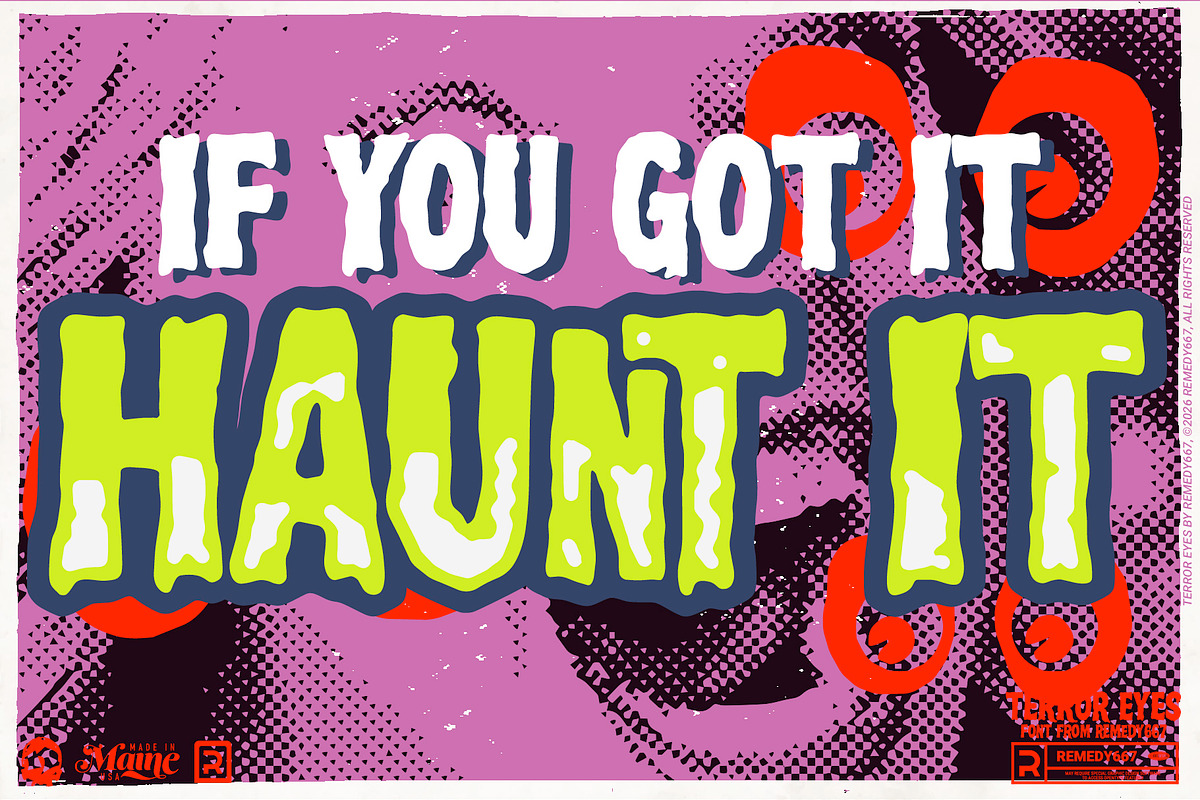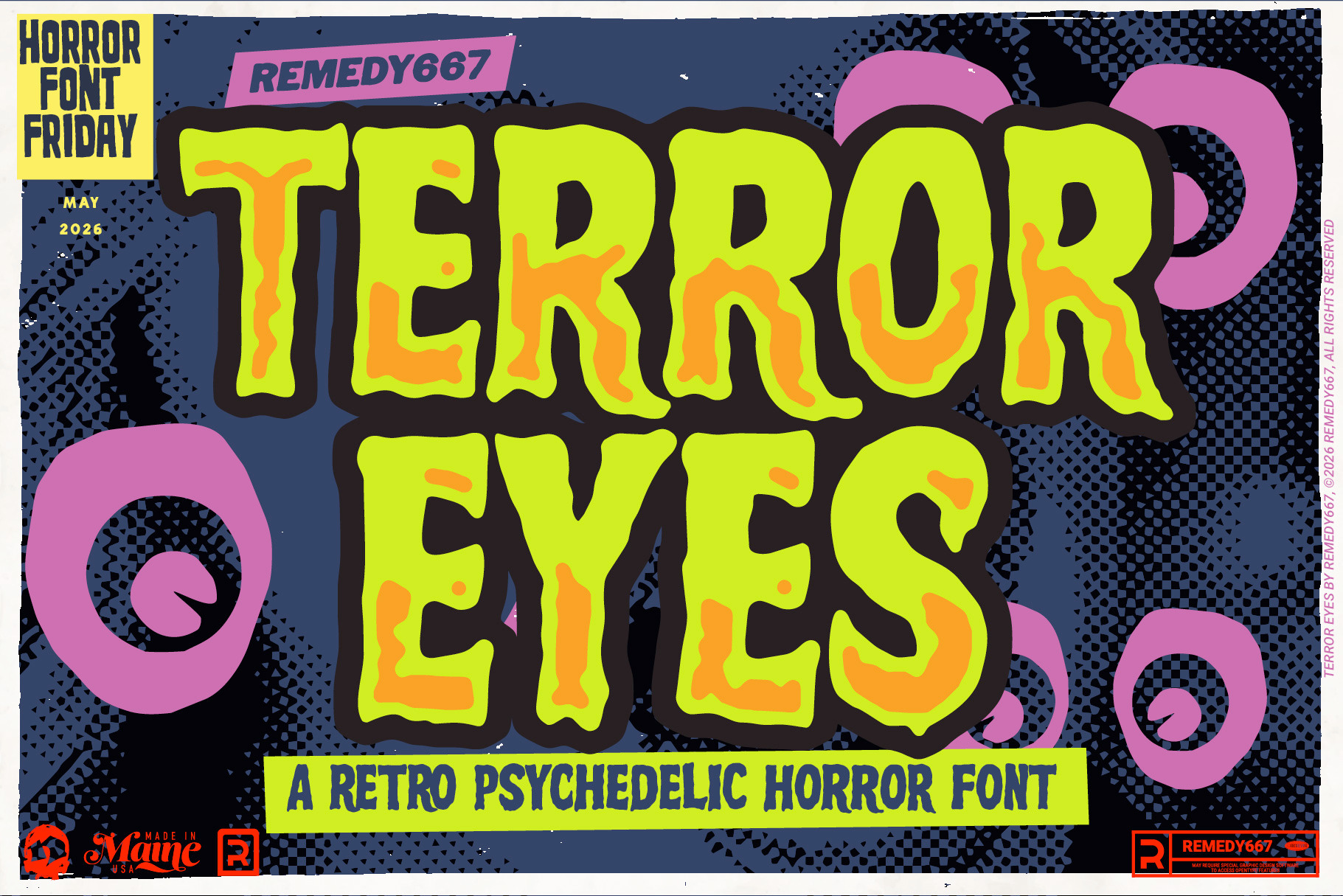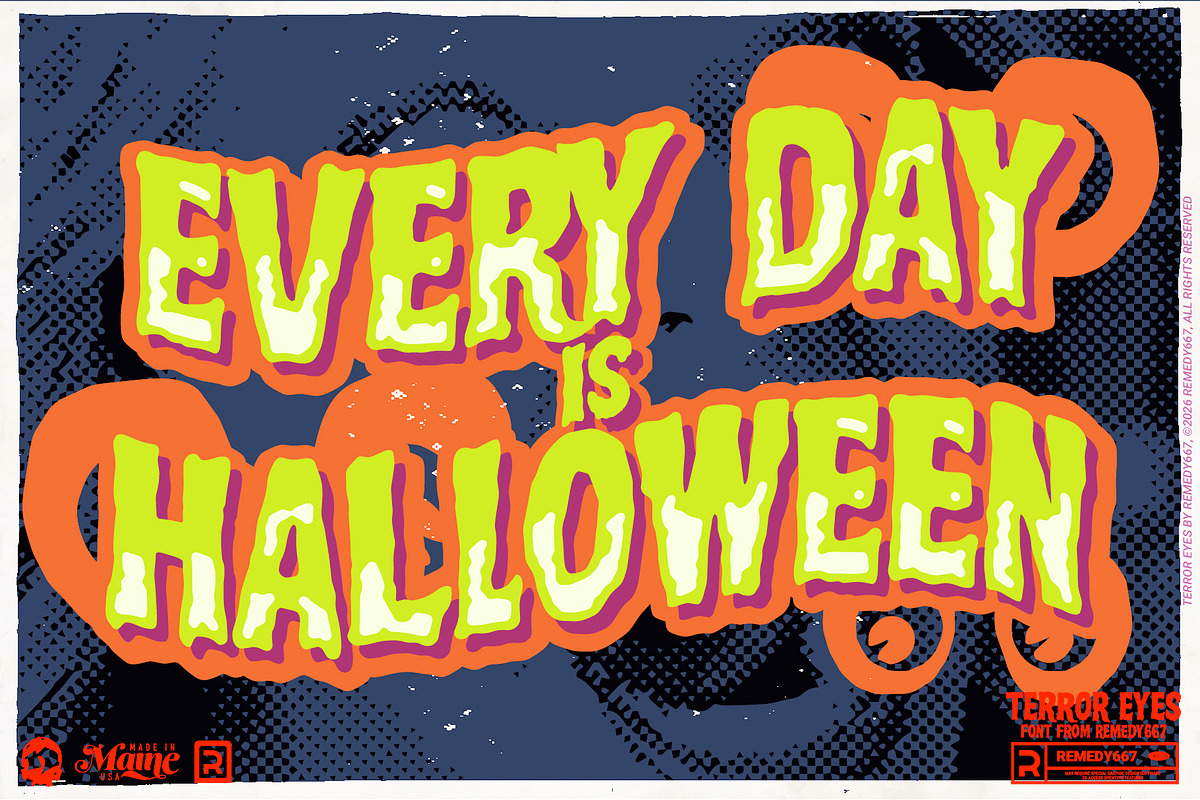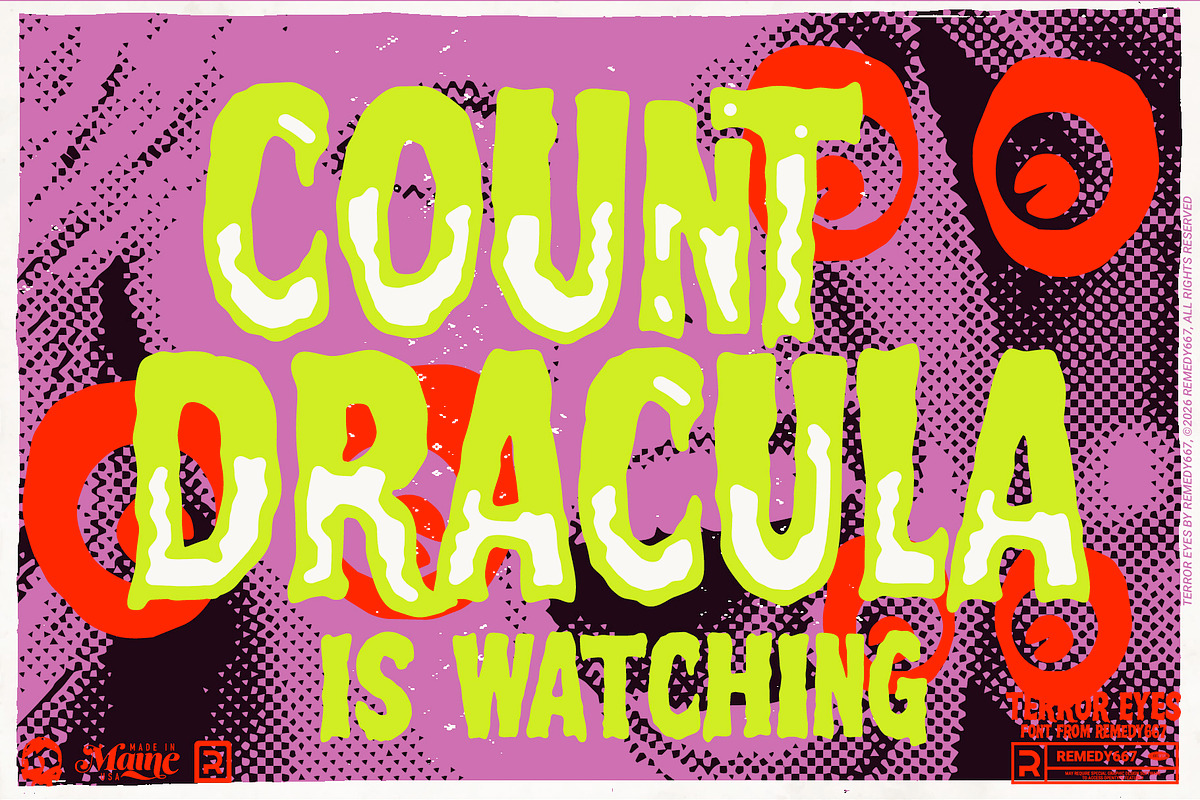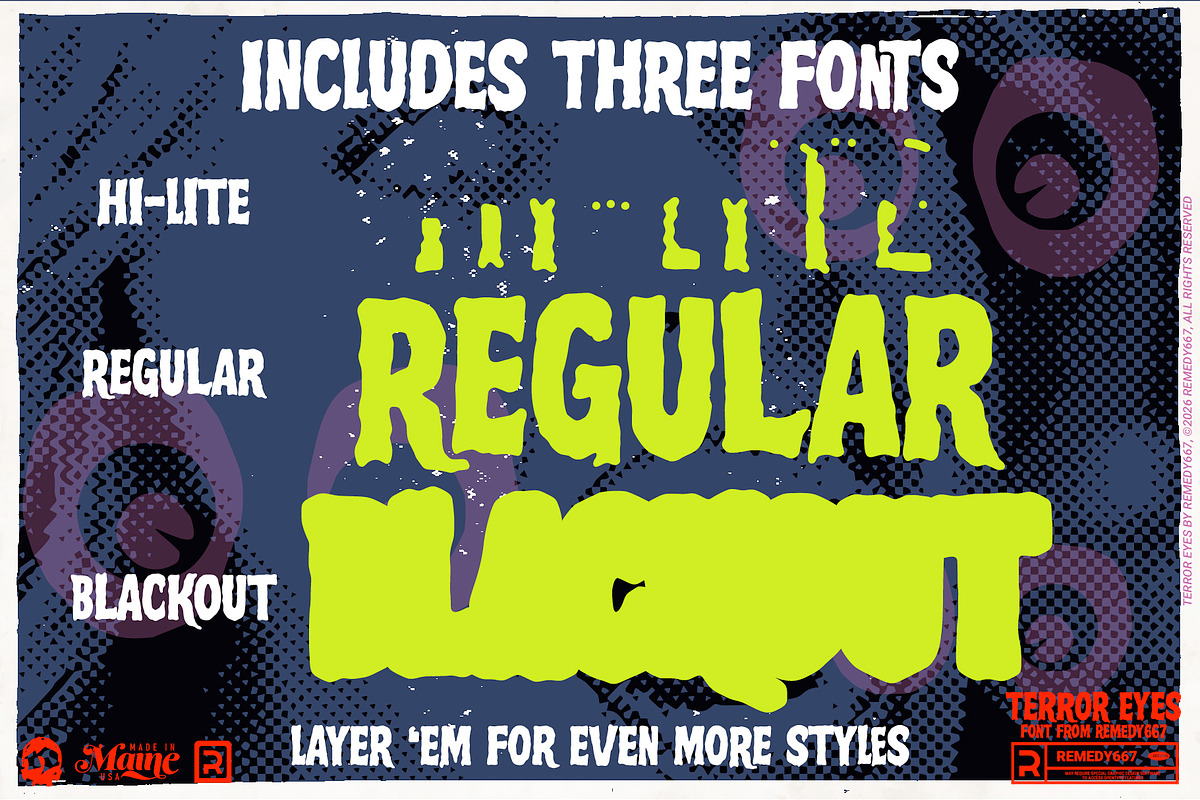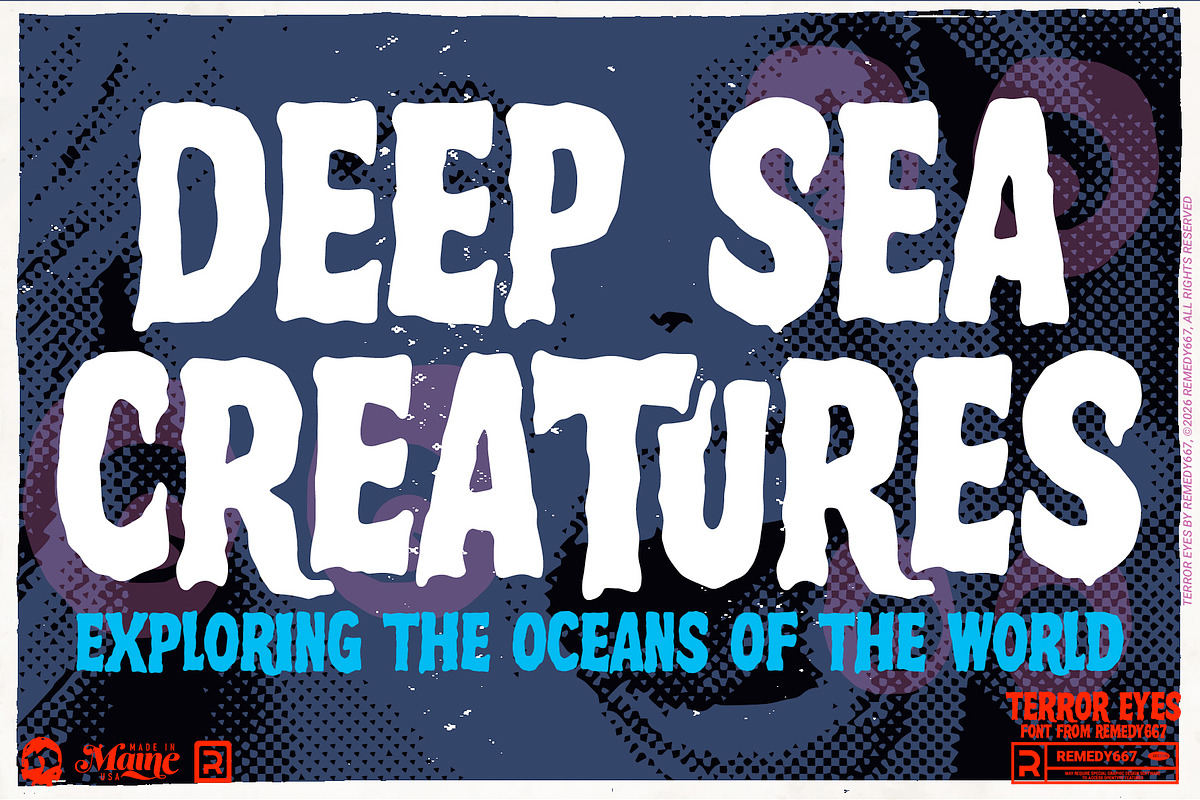
Terror Eyes - Layered Horror Font
Keep your eyes peeled, because Terror Eyes is staring straight into your soul! Sourced from a mysterious lettering sample discovered in the dark corners of Identify This Font on Reddit. Terror Eyes is a fiendish typeface inspired by the pages of classic Famous Monsters magazine horrors.
With dramatic bold shapes and vintage creature-feature energy, Terror Eyes is perfect for titles, taglines, and anything that could benefit from a more natural hand drawn look. Rotating characters and ligatures keep the text lively and unpredictable. Every line feels like it crawled straight out of a monster movie.
Inspired by classic Famous Monsters-style horror lettering
Rotating characters for natural, varied typography
Includes custom ligatures for added vintage flair
Multilingual support for worldwide mayhem